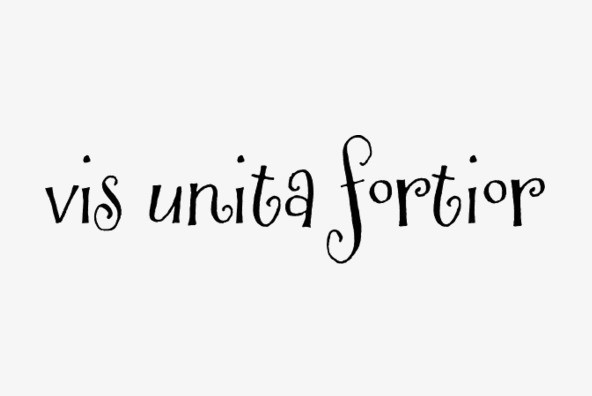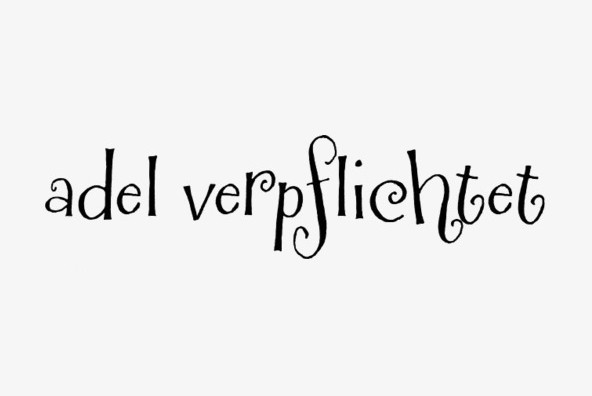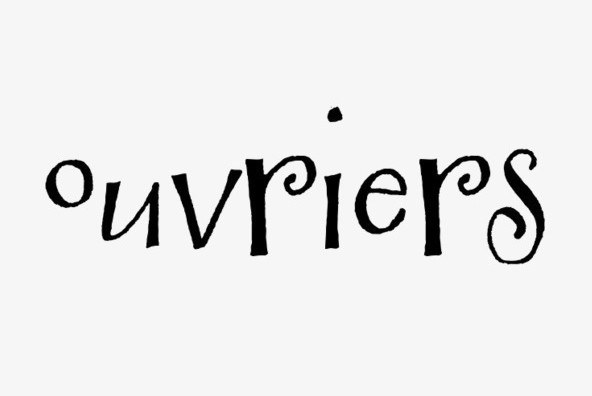
Henparty Sans
Foundry: Tart Workshop
Originally created by the Tart Workshop's own Crystal Kluge as a logo for an online tea store for chicks, Henparty Serif and Henparty Sans are sure to delight!
These fonts are perfect for baby announcements, giftware, any creative kid projects, children's books, scrapbooking, and more!